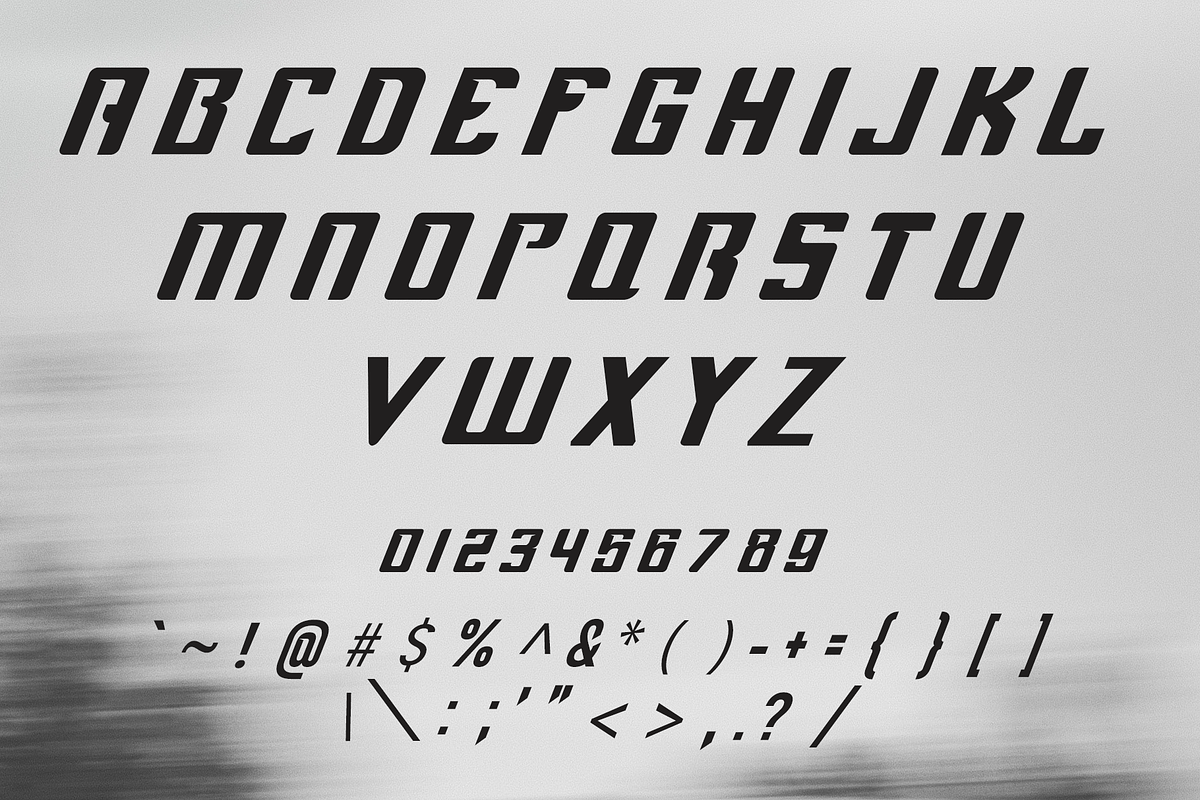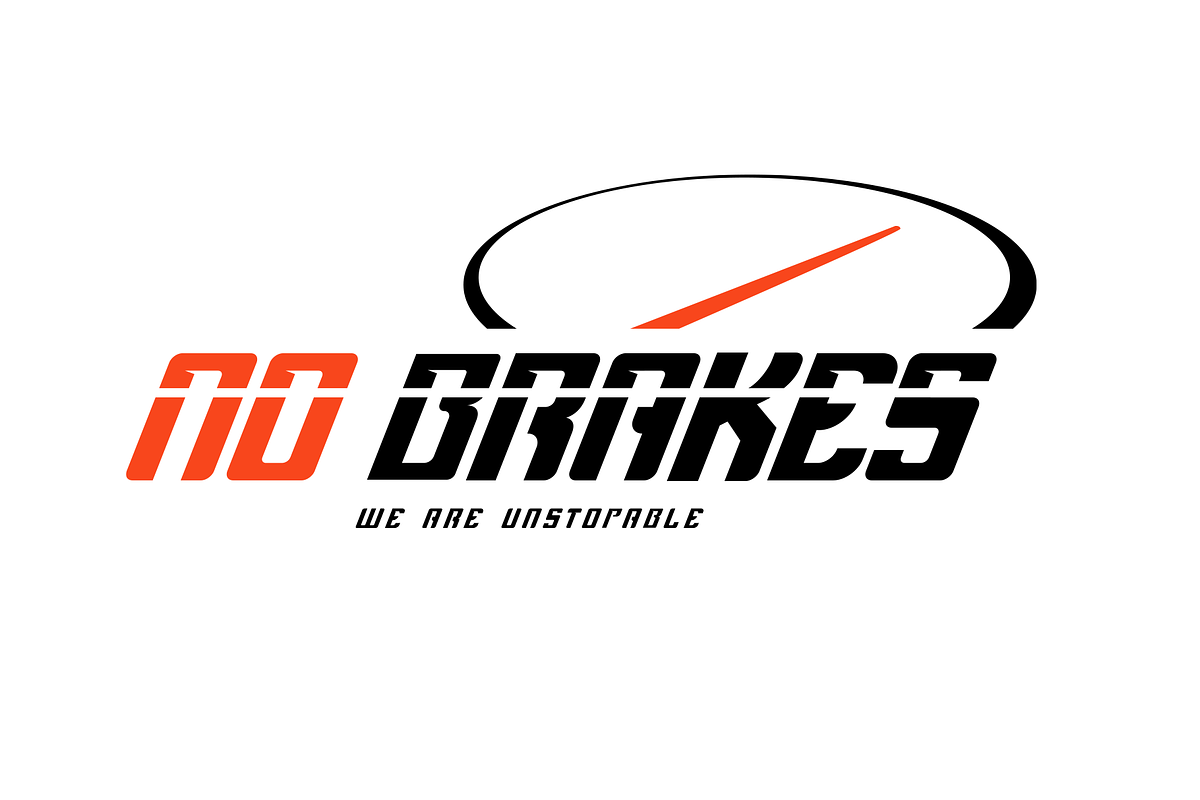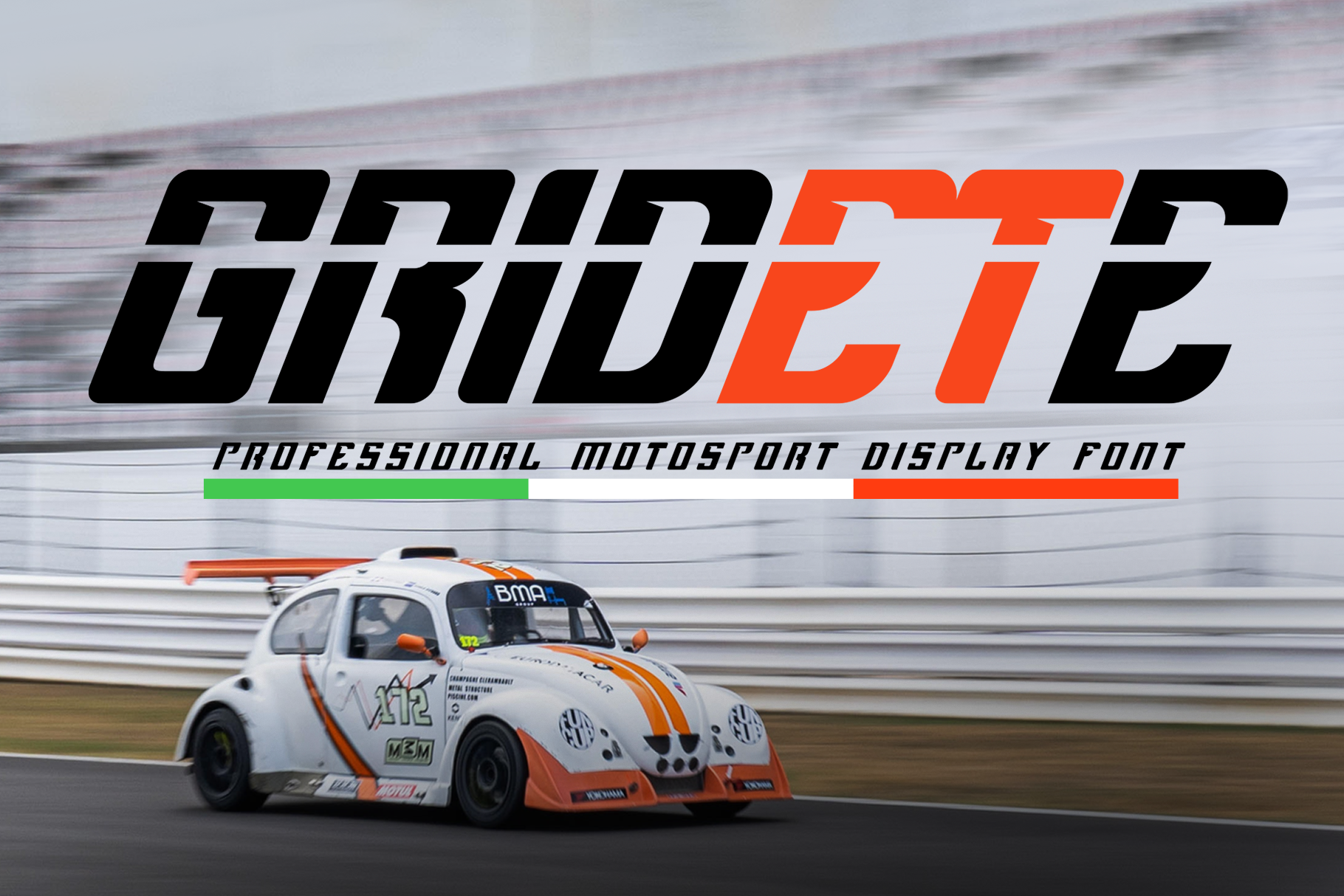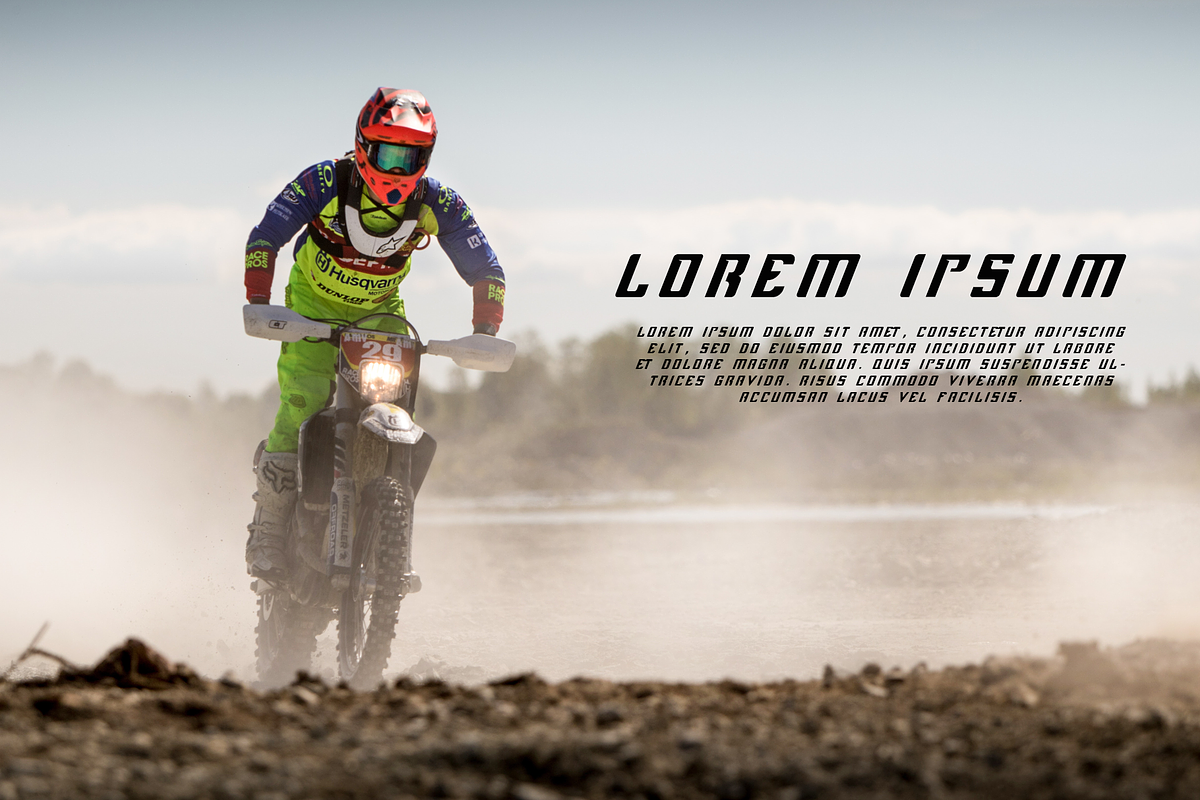
Gridete - Display Font
Introducing Gridete, an modern, simple, and cool display font. So perfect for you who needs a typeface for logo designs, magazine, social media, brochure, and many more.